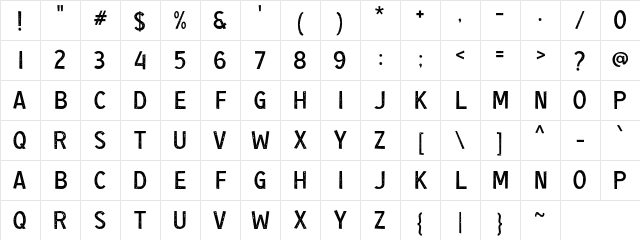
Complete a Ambang Resesi Regular glyph index. Displaying only characters natively supported by a Ambang Resesi Regular font.
a Ambang Resesi is a composed and adaptable typeface that performs quietly and consistently across a wide range of design contexts.